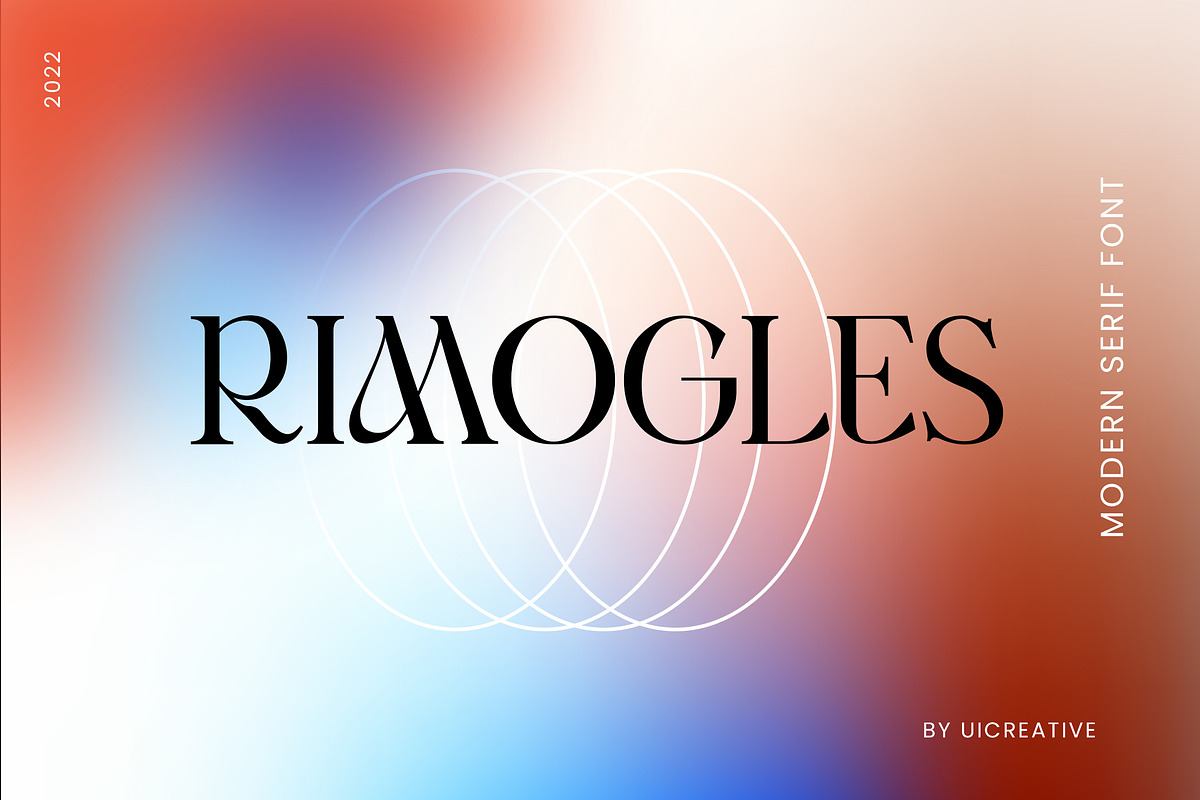
Rimogles Modern Serif Font Free Download is a sleek and sophisticated typeface that blends timeless serif elegance with clean, contemporary styling. Please note: you must purchase this font for commercial use, but you can test it through a free download. With its balanced letterforms, high-contrast strokes, and refined details, Rimogles is perfect for luxury branding, fashion editorials, logos, packaging, wedding designs, and upscale websites.
This font radiates elegance while maintaining clarity and professionalism—making it ideal for both display and text applications. Whether you're creating a chic logo or designing stylish promotional materials, Rimogles Modern Serif Font Free Download delivers polished, modern beauty. Fully compatible with Adobe Illustrator, Photoshop, Canva, and other design tools. Download it today for personal use and elevate your typography with the graceful sophistication of Rimogles.